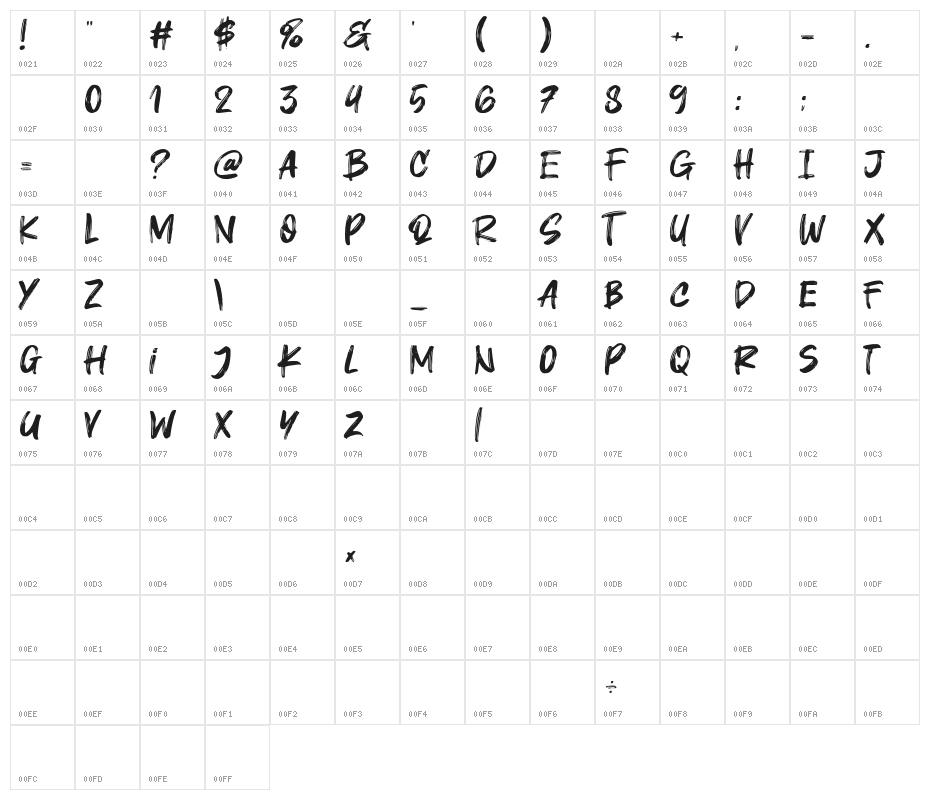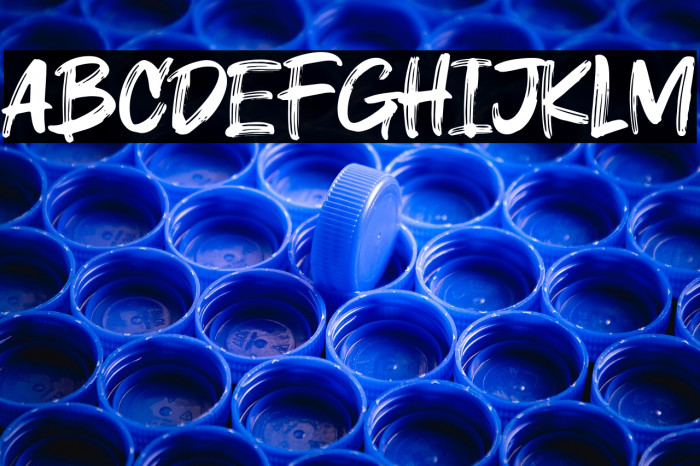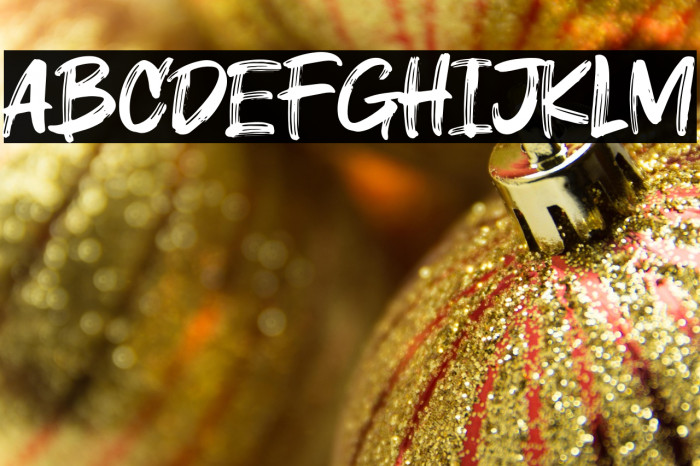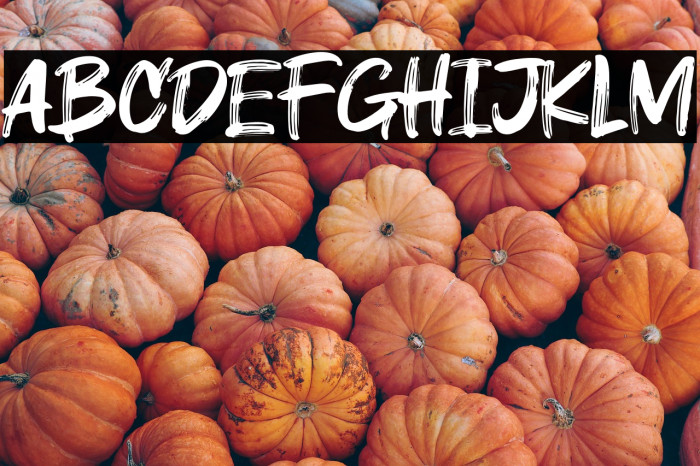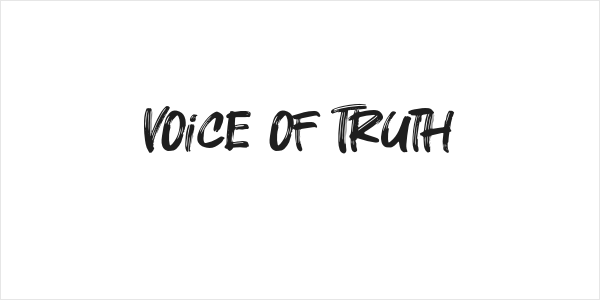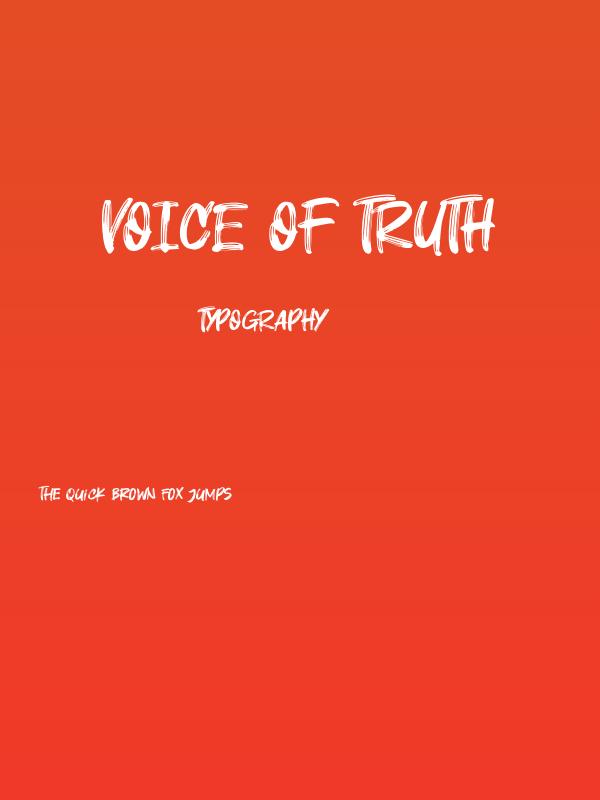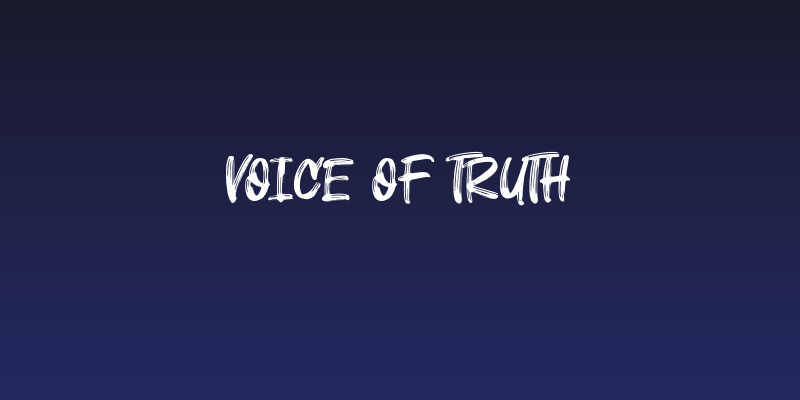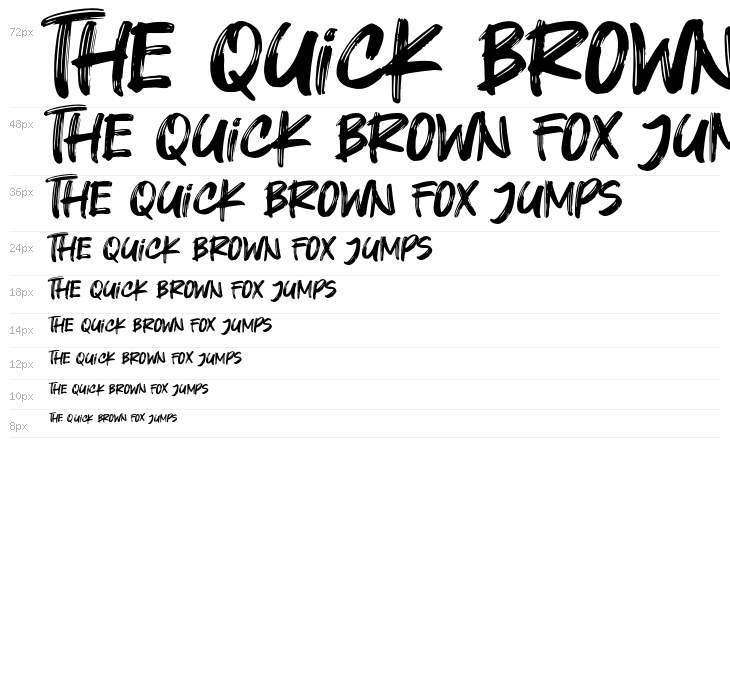
Voice of Truth Font
Voice of Truth Description
This font exhibits a bold, energetic brush style with a dynamic and expressive appearance. The strokes are thick and uneven, giving it a hand-painted look that conveys a sense of movement and spontaneity. The letters are slightly slanted, adding to the casual and informal feel. The uppercase and lowercase characters maintain a consistent style, with numbers and special characters following the same aesthetic. This font is ideal for projects that require a personal touch or a bold statement.
| Proposed Projects | Ideal for posters, branding, social media graphics, and any design requiring a bold, artistic touch. |